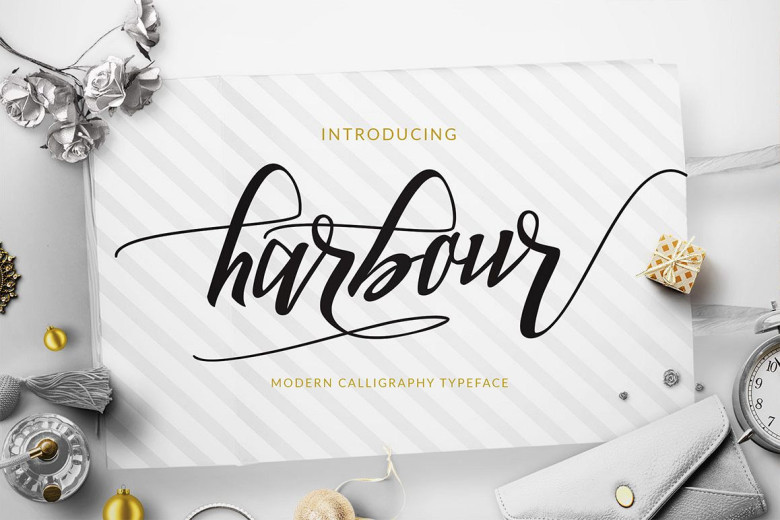
Harbour Script Font
Introducing Harbour! this is a premium font, are sold on creativemarket, but it was great, it is free today for download. Very suitable for greeting cards, branding materials, business cards, quotes, posters, and more!This font are perfect for wedding postcard. Or you can create perfect and unique design of your logo, blog, stationery, marketing, magazines and more ?